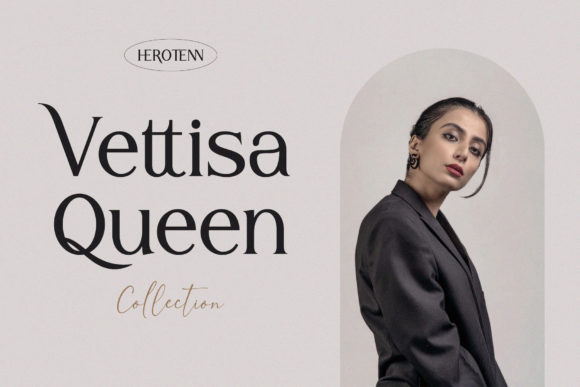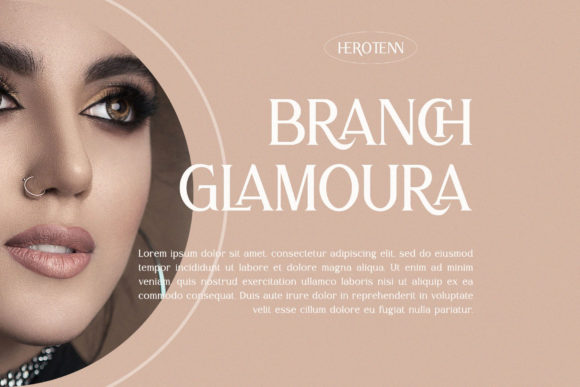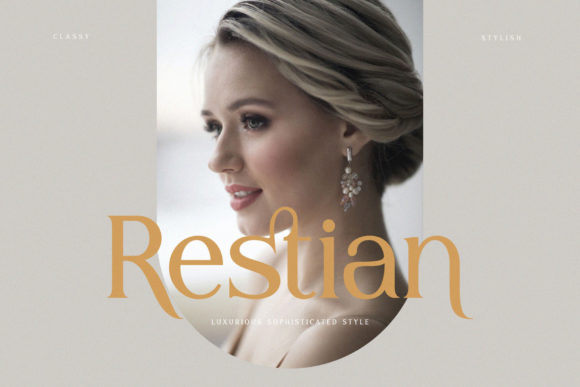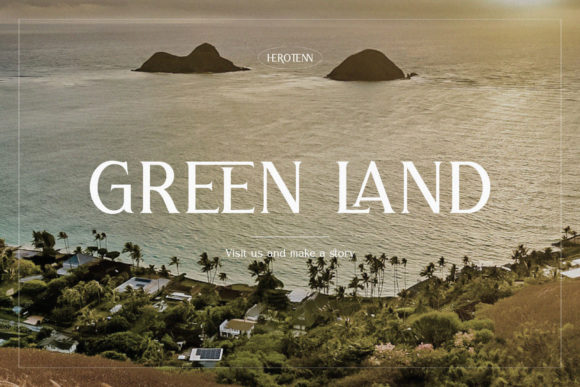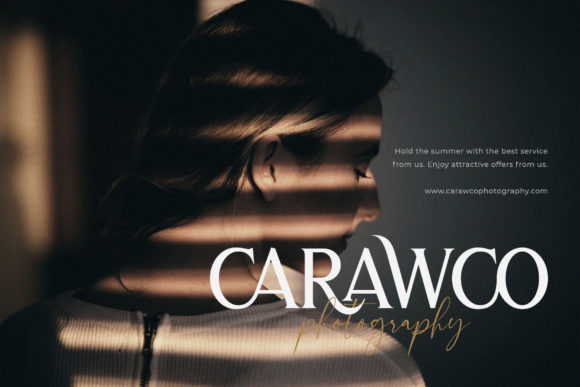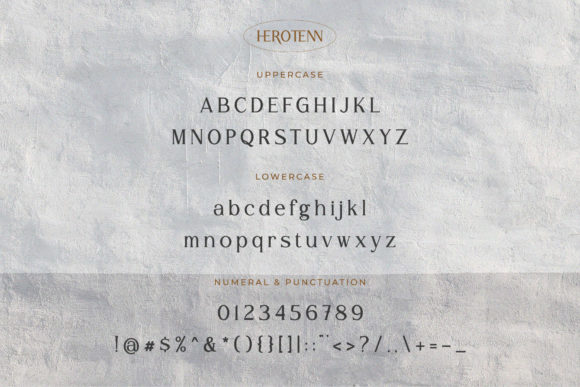
Introduction to Herotenn Font
Do you remember that moment when a single design element brings your entire creative project to life? For many of us, it’s the perfect font that makes all the difference. If you’re a designer looking to elevate your designs, you’re in luck because we’re about to introduce you to the Herotenn Font.
This stunning font is more than just a pretty face – it’s a powerful design resource that can add a touch of sophistication and elegance to any project. With its cool, bold, and thick lettered serif style, the Herotenn Font is sure to make a statement. And the best part? It’s PUA encoded, making it easy to access all the glyphs and swashes you need to create high-quality designs with ease.
Whether you’re working on a free download or a commercial project, the Herotenn Font is a valuable addition to any designer’s toolkit. Its transparent background and high-quality design make it perfect for use on its own or combined with other design elements. So why wait? Add the Herotenn Font to your design arsenal today and discover a whole new world of creative possibilities!
Key Features of Herotenn Font
- High-quality font design suitable for various creative projects, including logos, graphics, and typography-based designs.
- Features a unique, elegant design that can add a touch of sophistication to any creative project.
Honest Review: Herotenn Font
As a designer, I’m always on the lookout for high-quality design resources to elevate my creative projects. Recently, I stumbled upon the Herotenn Font, and I’m excited to share my honest review with you.
- Unique and stylish design: The Herotenn Font boasts a bold and striking design that’s perfect for making a statement in your creative project.
- Limited character set: I found that the font’s character set is limited, which may not be suitable for projects requiring a wide range of characters.
- Not suitable for small text: The font’s bold design may not be ideal for small text sizes, as it can be difficult to read.
Overall, I’m impressed with the Herotenn Font’s unique design and free download option. While it has some limitations, it’s still a valuable design resource for designers working on creative projects. If you’re looking for a bold and stylish font, the Herotenn Font is definitely worth checking out.
Using Herotenn Font in Design Projects
Herotenn Font is an ideal design resource for creative projects that require a high-quality, eye-catching font. Its transparent background and unique design make it perfect for use in logos, branding materials, and digital graphics.
Getting the Most Out of Herotenn Font
For the best results, use Herotenn Font in combination with other design elements, such as bold colors and textures. Experiment with different font sizes, styles, and arrangements to create visually appealing designs.
Common Use Cases for Herotenn Font
Herotenn Font is commonly used in:
- Digital graphics and animations
- Social media graphics and posters
Is the Herotenn Font high quality?
Yes, the Herotenn Font is designed to meet the highest standards of quality. With its clean lines and modern design, it’s perfect for a wide range of creative projects, from logos and branding to graphics and typography.